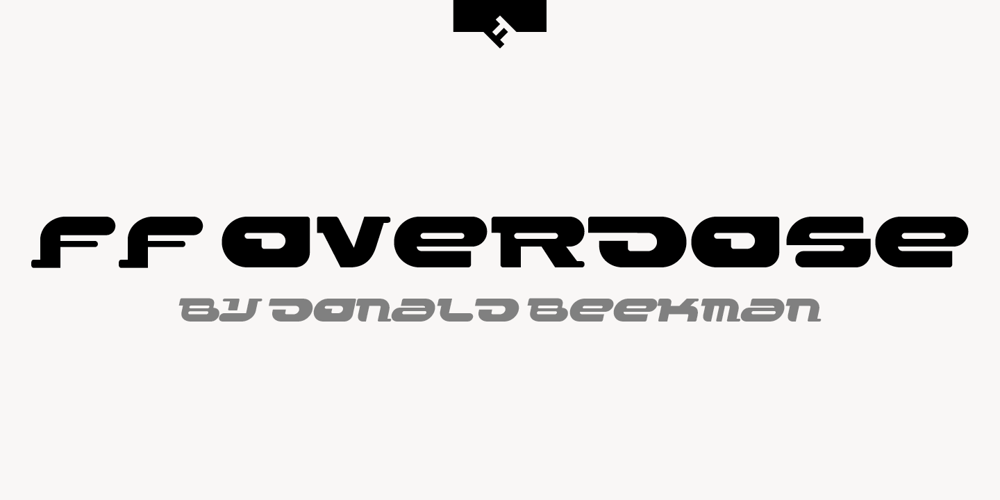
FF Overdose Font Family was designed by Donald Beekman and published by FontFont. FF Overdose contains 2 styles and family package options. Dutch type designer Donald Beekman created this display FontFont in 1999. The family contains 2 weights: Regular and Italic and is ideally suited for film and tv and music and nightlife. FF Overdose provides advanced typographical support with features such as ligatures and case-sensitive forms. It comes with proportional lining figures.